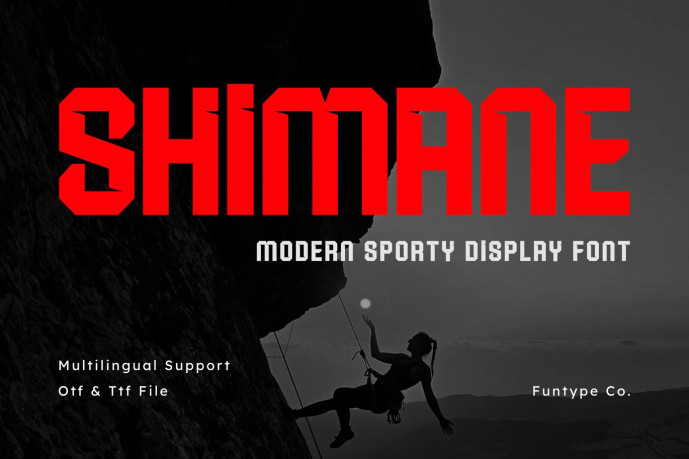
Shimane – Modern Sporty Display Font
Shimane is a bold and modern sporty condensed display font, engineered to bring an authoritative athletic presence, aggressive geometric weight, and sharp outdoor adventure aesthetic to contemporary creative layouts. Featuring a tall vertical profile, solid block structures, and distinctive angular notches, Shimane introduces a premium sports broadcast, extreme outdoor expedition, and prominent cinematic media identity designed to claim absolute visual focus.
This font family is the ultimate choice for creative directors, digital gaming publishers, and agency brand designers looking to implement a robust, space-efficient typography identity for major text hierarchies. Whether you are developing bold corporate enterprise logotypes, extreme mountain sports campaign layouts, energy drink branding, cinematic action movie title sequences, racing team presentation headers, or prominent digital web banners, Shimane stands out with supreme legibility and structural confidence.
Modern Sporty Condensed Structure: Optimized with a narrow horizontal footprint and tall tracking for solid, heavy, and high-impact title compositions.
Aggressive Sharp Geometry: Bold block lines with unique diagonal notch cuts crafted to secure instant audience attention.
Dynamic Outdoor Aesthetic: Clean linear strokes balanced with high-energy athletic contours, perfect for cutting-edge sports networks and digital gaming media.